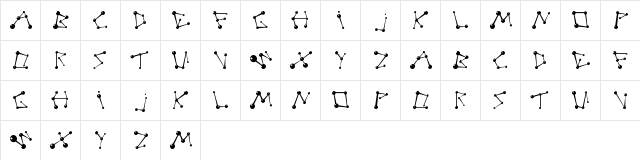
BPmolecules Regular
| Foundry | George Triantafyllakos |
| Designer | George Triantafyllakos |
Design Context for BPmolecules Typeface
BPmolecules is a composed and adaptable typeface that performs quietly and consistently across a wide range of design contexts.